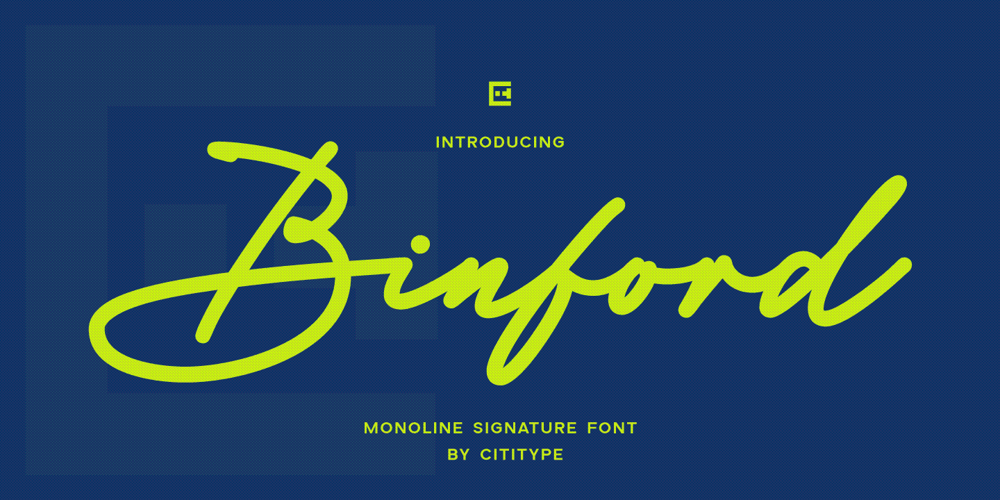
Binford Font Family was designed by Muhammad Ridha Agusni, Siti Saribanon Nurjannah and published by Cititype. Binford contains 2 styles and family package options. “Binford” is a Signature Monoline Script font that combines elegance with clarity. Its clean, uniform strokes create a professional and modern feel, making it ideal for branding, logos, packaging, and digital media. The font strikes a perfect balance between a polished, professional look and a personal, handwritten touch, ensuring versatility across various design projects. Whether used for invitations, social media posts, or event branding, “Binford” adds a refined and sophisticated touch, making it a valuable asset for any designer looking to create a timeless and stylish aesthetic.